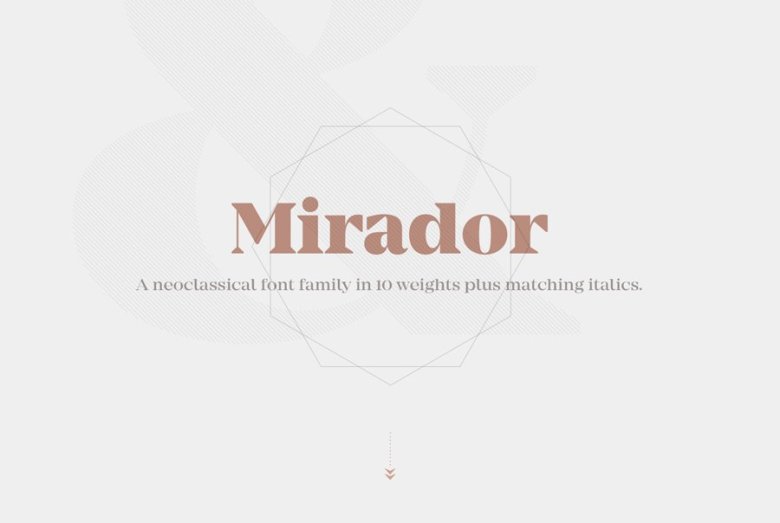
Mirador Typeface
Mirador Font is a powerful neoclassical font designed for various usages — ranging from editorial and corporate design to web, interaction and product design. It is a contemporary take on high contrast typefaces that have never gone out of style — defined by elegance, tradition and timelessness.